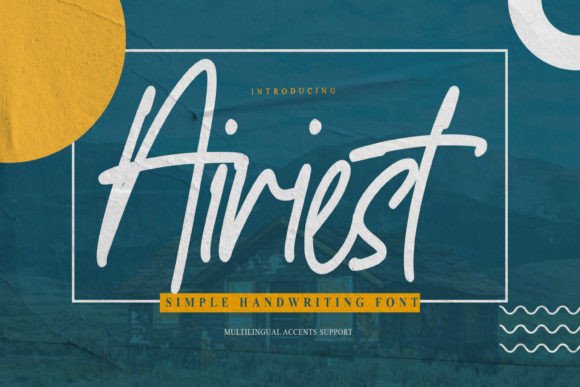
Airstream Font for Web Design
Testing Airiest in Real Web Layouts
As a web designer, I've had the pleasure of testing countless fonts over the years, but few have left as strong an impression as Airiest. This simple and natural handwritten font has quickly become a favorite in my design toolkit. It’s not just about aesthetics—it's about how it performs in real digital environments, from hero sections to landing pages.
I first tested Airiest on a boutique online store homepage. The goal was to create a warm, inviting feel that would resonate with the brand’s handmade aesthetic. I placed Airiest in the hero section as the main headline, using it alongside a clean sans-serif font for body text. The contrast worked beautifully—Airiest added character without overwhelming the user.
The Visual Personality of Airiest
Airiest is a script font with a subtle, elegant flair. It feels natural and effortless, like handwriting that you'd see on a vintage postcard or a hand-drawn sign. Its simplicity makes it versatile, and its charm is undeniable. It’s not overly ornate, which means it doesn’t distract from the content it supports.
One of the things I love about Airiest is how it adapts to different contexts. On a dark background, it feels bold and modern. On a light background, it softens into something more approachable. This flexibility is a huge plus for web designers who need fonts that can work across multiple layouts and color schemes.
Using Airiest in Digital Branding
In a recent project for a creative portfolio site, I used Airiest as the primary typeface for headings and call-to-action buttons. The result was a cohesive and visually appealing design that felt both professional and personal. Pairing it with a clean sans-serif font for body text created a balanced look that enhanced readability while maintaining a unique brand identity.
For a course sales page, I experimented with using Airiest in the title and subheadings. It helped draw attention to key points without being too flashy. I also used it in decorative accents, like button labels and social media links, where its playful nature shone through.
Readability and Responsiveness
When designing for the web, readability is everything. I’ve found that Airiest performs well on both desktop and mobile screens. However, I recommend using it sparingly on smaller elements like buttons or navigation menus. Its script style can sometimes make it harder to read at very small sizes.
On larger screens, Airiest looks great in hero sections and banners. It works especially well when placed over images or video backgrounds, adding a layer of visual interest without competing with the content. I also noticed that it reads smoothly on dark backgrounds, making it a great choice for dark mode designs.
Font Pairing and Versatility
Pairing Airiest with the right complementary font is key to achieving a harmonious design. I often pair it with a clean sans-serif font like Montserrat or Lato for body text. This combination creates a clear visual hierarchy and ensures that the message remains easy to digest.
If you're looking for a more editorial feel, consider pairing Airiest with a serif font like Playfair Display. This adds a touch of sophistication while keeping the overall design grounded. For a more modern look, a minimalist sans-serif can provide the perfect contrast.
It’s also worth noting that Airiest offers several styles, including alternates and ligatures, which can be useful for creating variety in your design. These features are especially handy when working on digital templates or branding kits.
Considerations for Use
While Airiest is a fantastic choice for many applications, there are a few situations where it may not be ideal. For example, it’s not recommended for long paragraphs or dense body copy due to its decorative nature. It also isn’t the best choice for small navigation text or form labels, where clarity and legibility are paramount.
Final Thoughts on Airiest
Overall, Airiest is a versatile and beautiful font that brings a sense of warmth and personality to any digital project. Whether you're designing a boutique website, a course landing page, or a blog header, it has the potential to elevate your brand’s visual appeal without sacrificing readability or usability.
Its ability to adapt to different contexts and pair well with other fonts makes it a valuable asset in any web designer’s arsenal. With the right considerations and thoughtful application, Airiest can help you create stunning, user-friendly designs that leave a lasting impression.